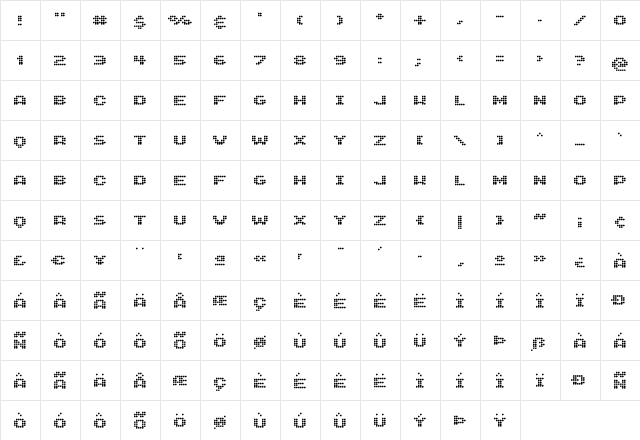
GenetrixCrossed Regular
Design Context for GenetrixCrossed Typeface
GenetrixCrossed takes a measured approach to typography — its balanced proportions and neutral character make it a reliable workhorse for both digital and print work.